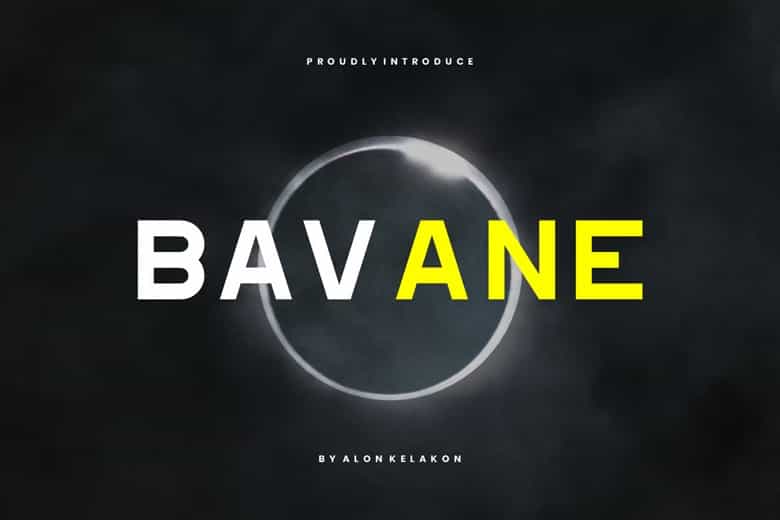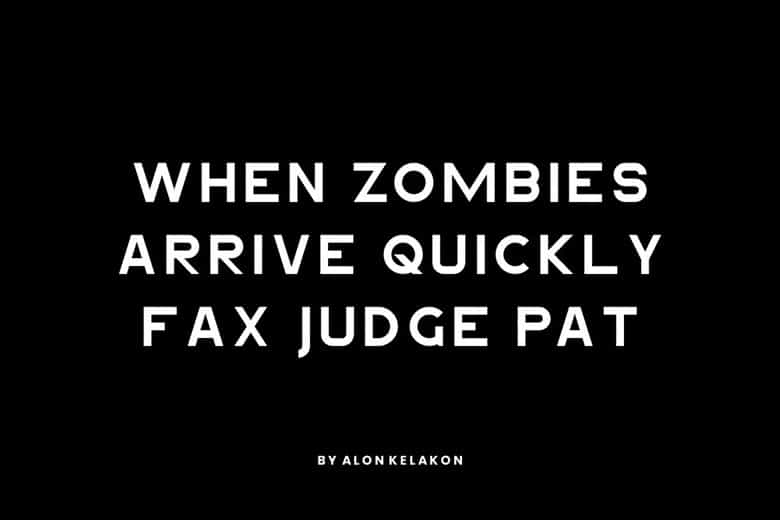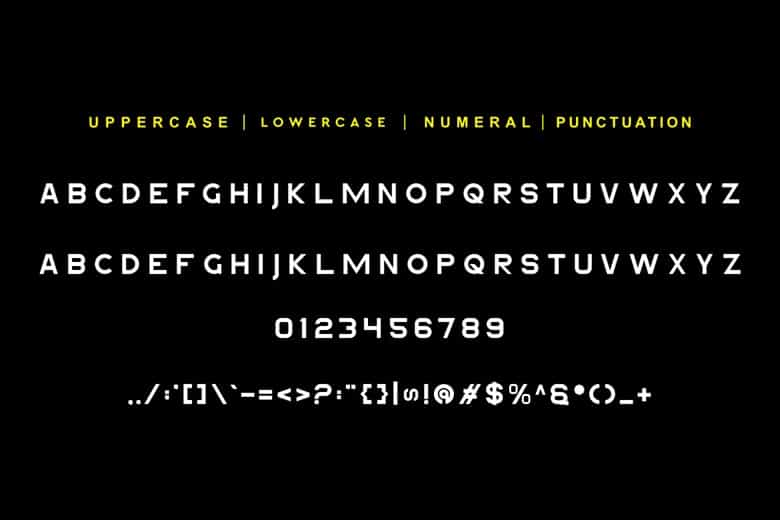
Bavane Font
Bavane is a unique and modern sans serif font. Available for your designs including, labeling, movie scene, poster, title of the movie, concerts, album covers, logos and many more.